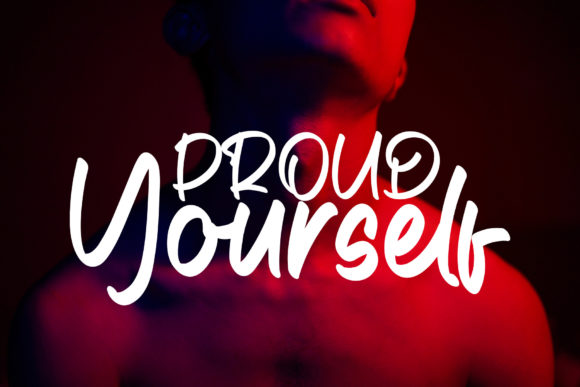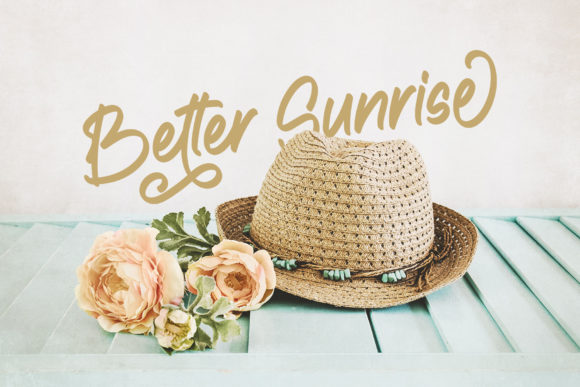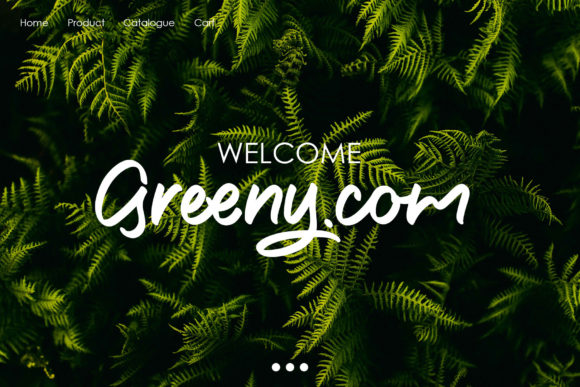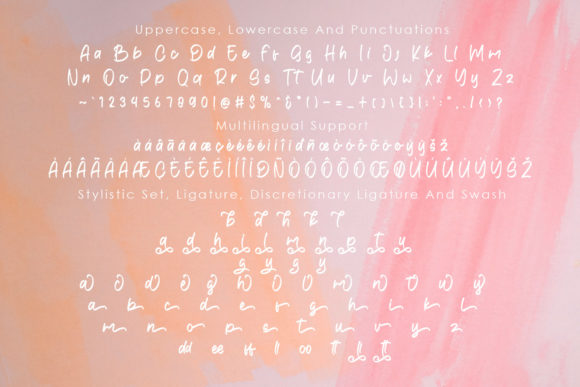
Discovering the Perfect Script: Celina Stephanie Font
Have you ever sat in front of a blank canvas, staring at a sea of possibilities, and thought, “What if I could infuse my design with a touch of elegance and whimsy?” For designers, this moment of creative block is all too familiar. But what if you had the perfect tool to break through that barrier and transport your audience to a world of sophistication and charm?
Enter Celina Stephanie Font, a stunning handwritten font that brings a touch of personality to any design. With its unique flair and beautiful curves, this font is perfect for adding a personal touch to invitations, quotes, and other creative projects. As a PUA-encoded font, you’ll have access to all the glyphs and swashes you need to make your design truly special.
Celina Stephanie Font Key Features
- Size: This font family consists of 6 styles, each available in 4 font weights: Light, Regular, Medium, and Bold.
- Unique Characteristics: This script font features elegant, cursive connections and subtle flair, making it perfect for creative and artistic projects.
- Language Support: The Celina Stephanie Font supports a wide range of languages, including Latin-based languages, making it a versatile choice for various projects.
Celina Stephanie Font Review
As a designer, I was excited to dive into the world of Celina Stephanie Font, a elegant script font that promises to add a touch of sophistication to any design project. ✨ One thing that works well with this font is its beautiful, flowing connections between letters. The subtle curves and flourishes give it a high-end feel that’s perfect for luxury brands or weddings.
Another strength of Celina Stephanie Font is its versatility. ✨ It’s suitable for both print and digital projects, and it works well in a variety of contexts, from headings to body text. The font also includes a range of weights and styles, making it easy to create a cohesive look across different elements of a design.
- ⚠️ Limited language support: Unfortunately, Celina Stephanie Font only includes support for Latin-based languages, which may be a limitation for designers working with non-Latin scripts.
- ⚠️ Not ideal for small text: While Celina Stephanie Font is beautiful, it’s not ideal for small text sizes. The flourishes and connections between letters can become difficult to read at very small sizes.
Overall, I’m impressed with the quality and elegance of Celina Stephanie Font. While it has some limitations, it’s a great choice for designers looking to add a touch of sophistication to their projects. With a little creative restraint, this font can really shine.
Tips: Use Celina Stephanie Font for headings and titles to add a touch of elegance to your designs. Experiment with different font sizes and styles to achieve the desired look.
Tips: Use Celina Stephanie Font for titles and headings to add a touch of sophistication to your designs. Experiment with different font sizes and styles to achieve the desired look.
Tips: Use Celina Stephanie Font for headings and titles to add a touch of elegance to your presentations and documents. Experiment with different font sizes and styles to achieve the desired look.
Celina Stephanie Font is ideal for:
- Brand logos and typography
- Magazine and book titles
- Formal event invitations
Alternatives to Celina Stephanie Font
Great Vibes is a beautiful, elegant script font that works well for creative projects, wedding invitations, and luxury branding. It has a similar feel to Celina Stephanie Font but with a more whimsical and flowing design. Great Vibes is perfect for adding a touch of sophistication and romance to your designs.
Comparison to Celina Stephanie Font: Great Vibes is more cursive and less structured than Celina Stephanie Font, making it ideal for projects that require a more free-flowing design.
Is the Celina Stephanie Font optimized for digital use?
Yes, the Celina Stephanie Font is designed with digital use in mind. It includes features such as hinting and kerning to ensure optimal legibility and readability on various screens and devices. However, the font’s performance may vary depending on the specific application, screen resolution, and device used.